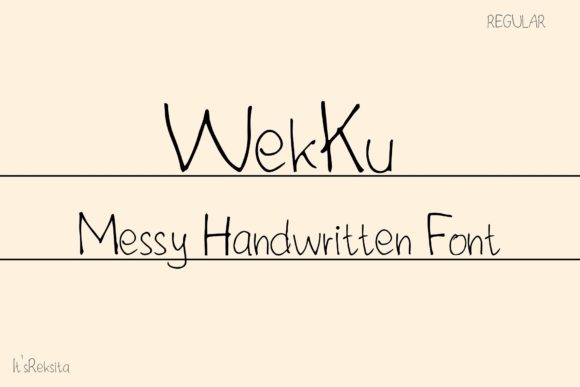
Dive into the realm of handwritten elegance with the captivating Wekku Font, a script font family that breathes life into your creative endeavors. Inspired by the art of calligraphy, Wekku's free-flowing strokes and playful characters dance across the page, leaving a trail of artistic charm.
Step into a world where your words take on a life of their own, where each letter is a brushstroke of personality and emotion. Wekku's messy handwritten style brings an inviting warmth to your projects, creating designs that resonate with a personal touch. Embrace the beauty of imperfection, for it is in the quirks and irregularities of Wekku that its true magic lies.
With Wekku, your designs will radiate a sense of effortless creativity, as if each word were a spontaneous expression of your imagination. Its hand-carved characters evoke a sense of nostalgia, harkening back to a time when letters were crafted with care and attention to detail. Whether you're designing logos, invitations, social media posts, or any other project that calls for a touch of whimsy, Wekku is your trusted companion.
Unleash your inner artist and let your words flow with Wekku's enchanting script. Its cozy-looking characters create a welcoming atmosphere, inviting your audience to immerse themselves in your creations. Let your message shine through the unique accents and informal style of Wekku, leaving a lasting impression that speaks volumes about your creativity and passion.